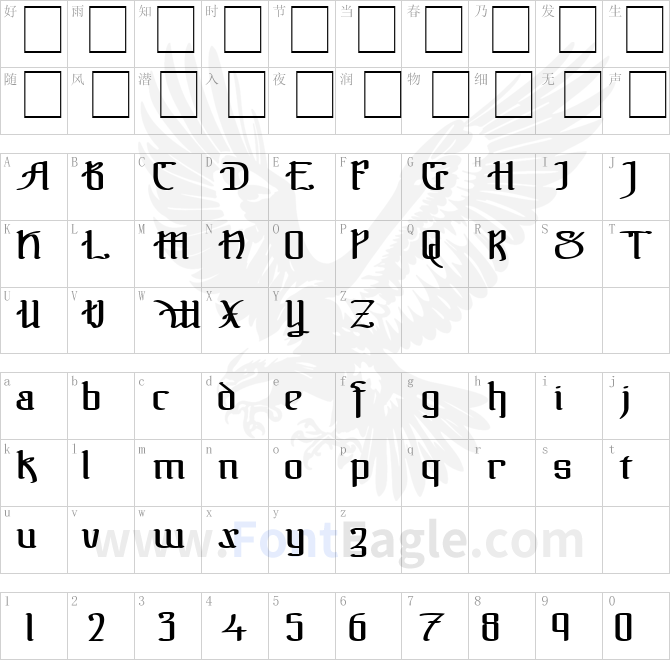
- Font name:!The Black Bloc
- Font Subfamily ID:!ExclamachineTypeFoundry: !The Black Bloc: 2006
- Font Full Name:!The Black Bloc
- Postscript:!TheBlackBloc